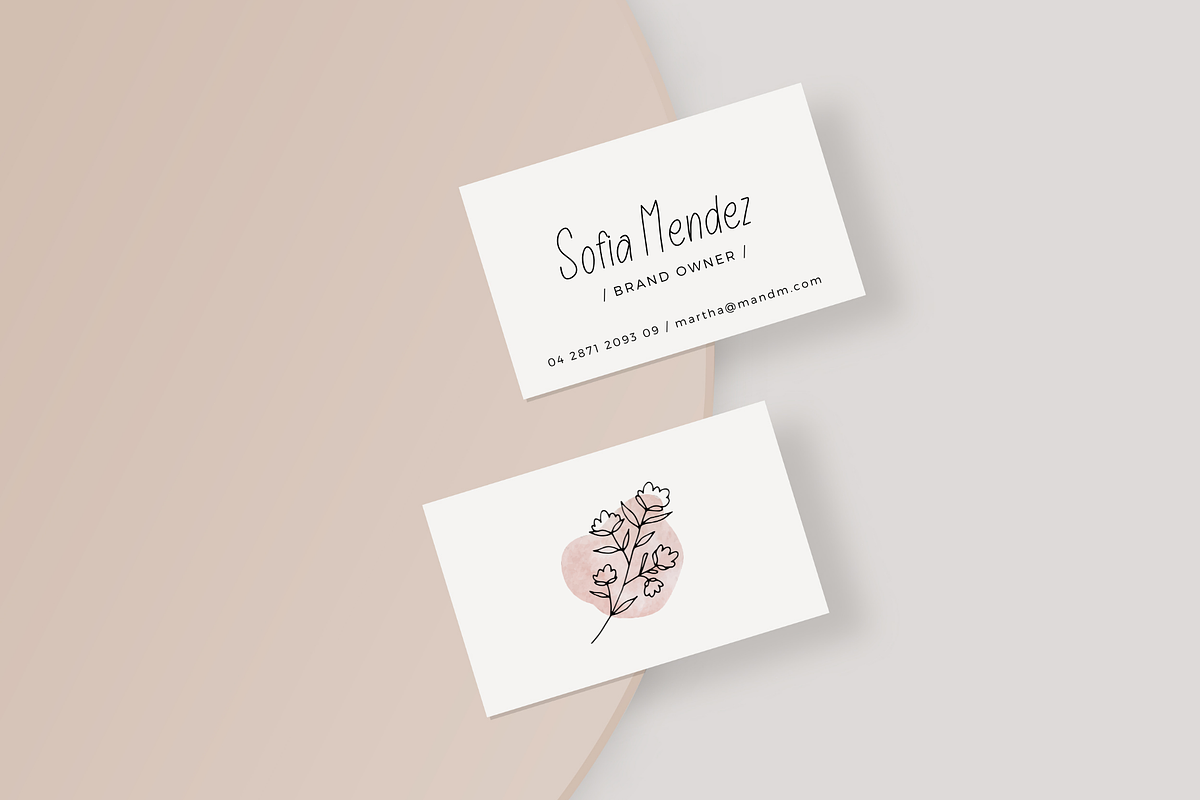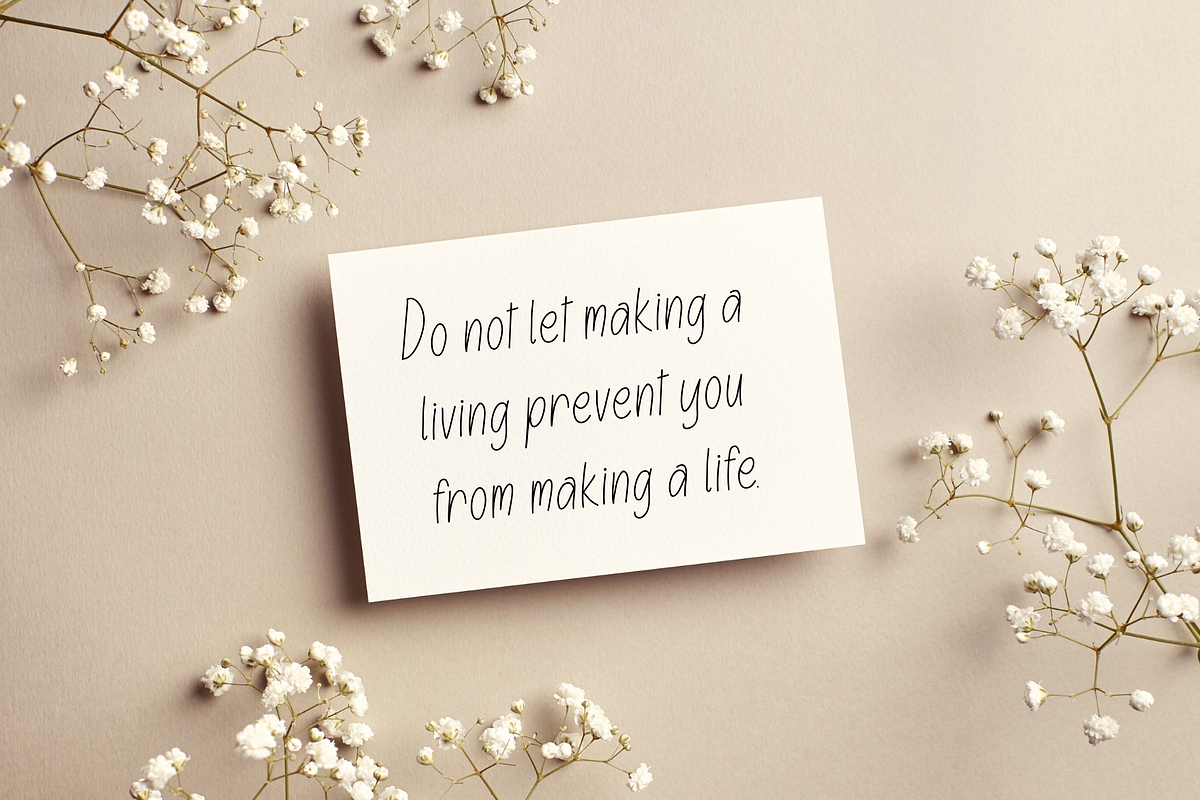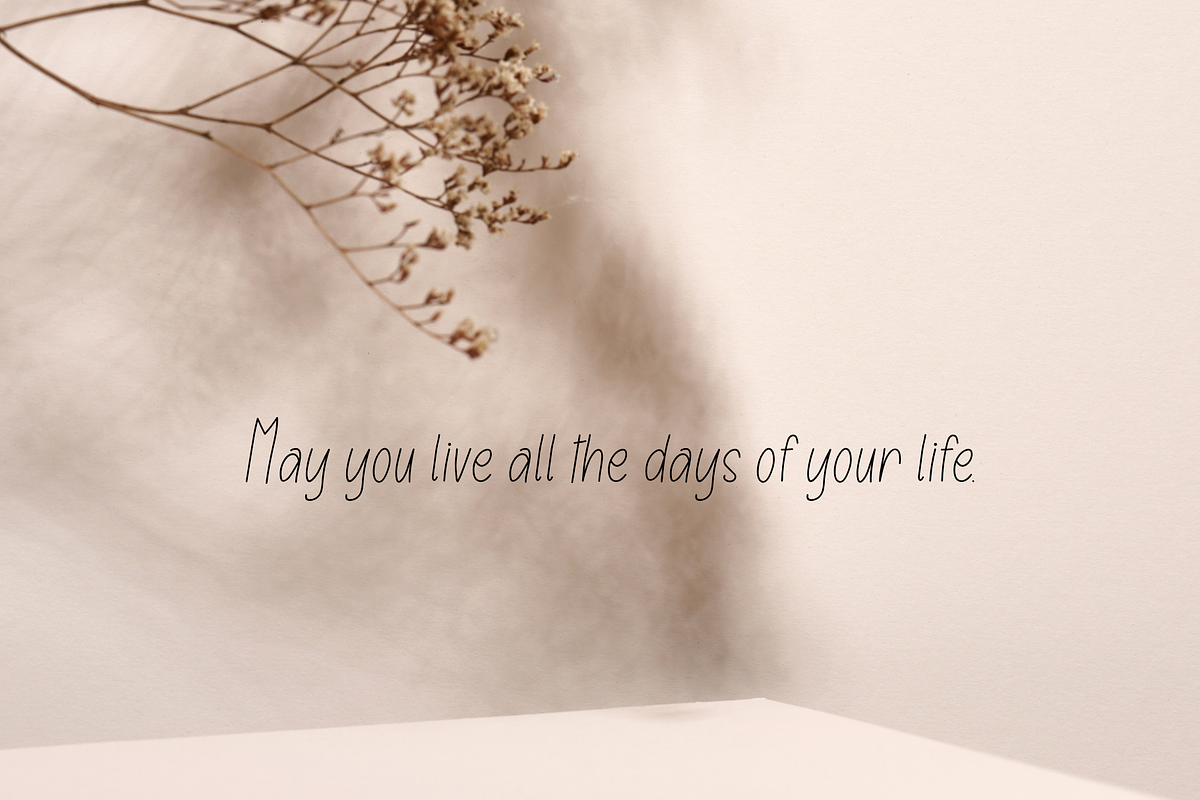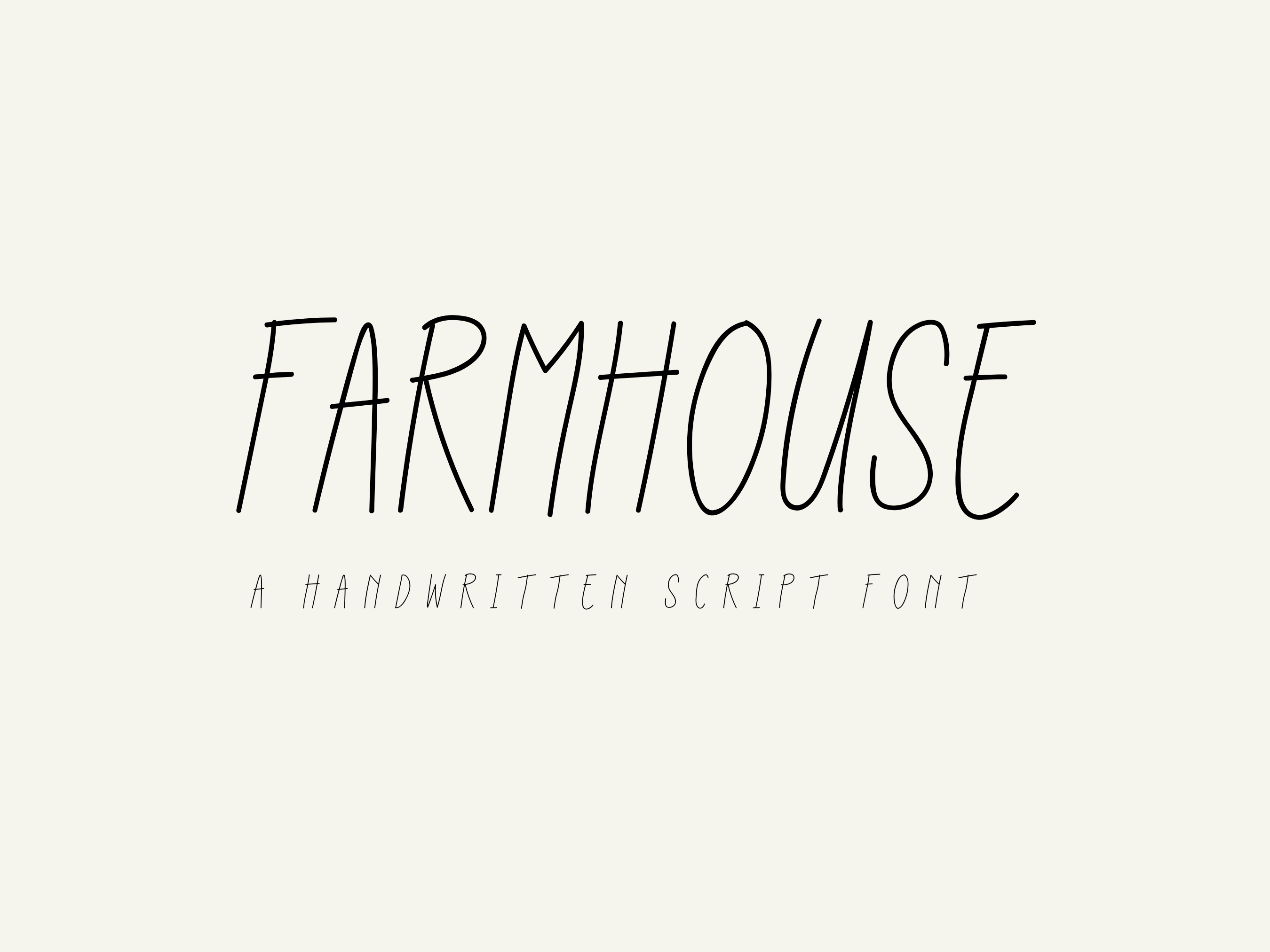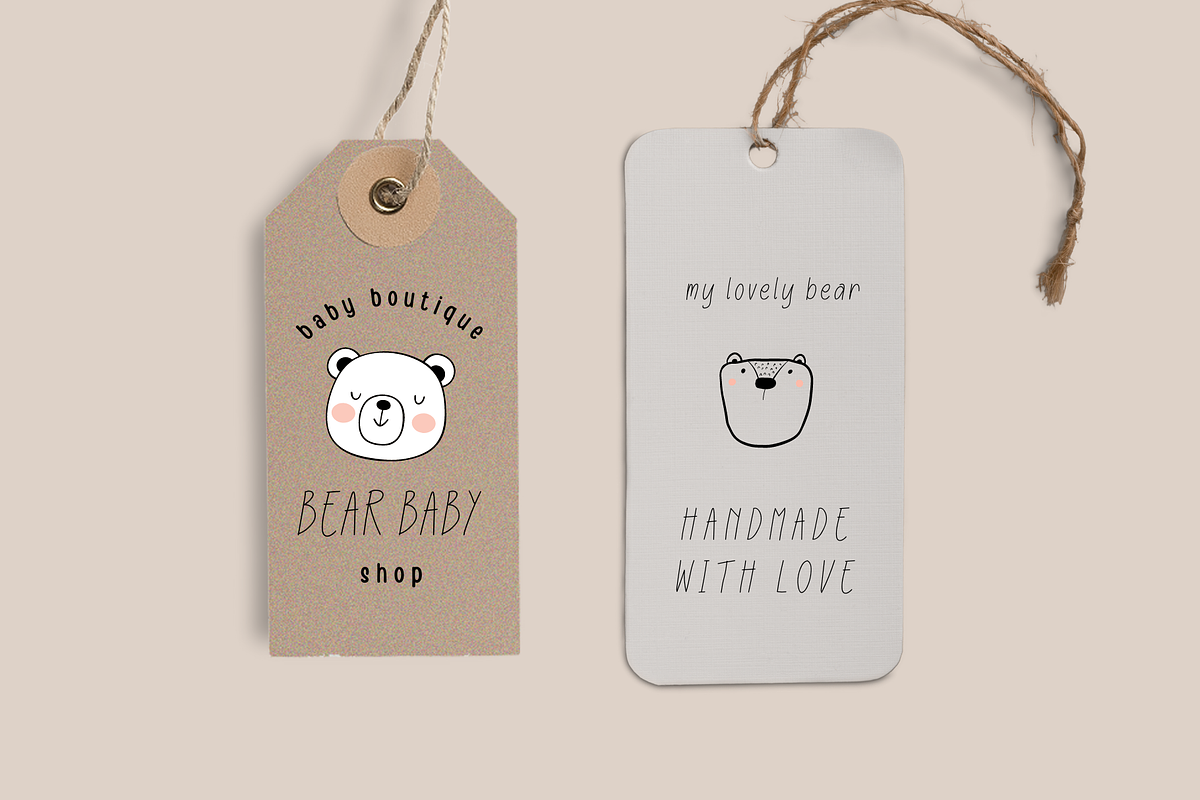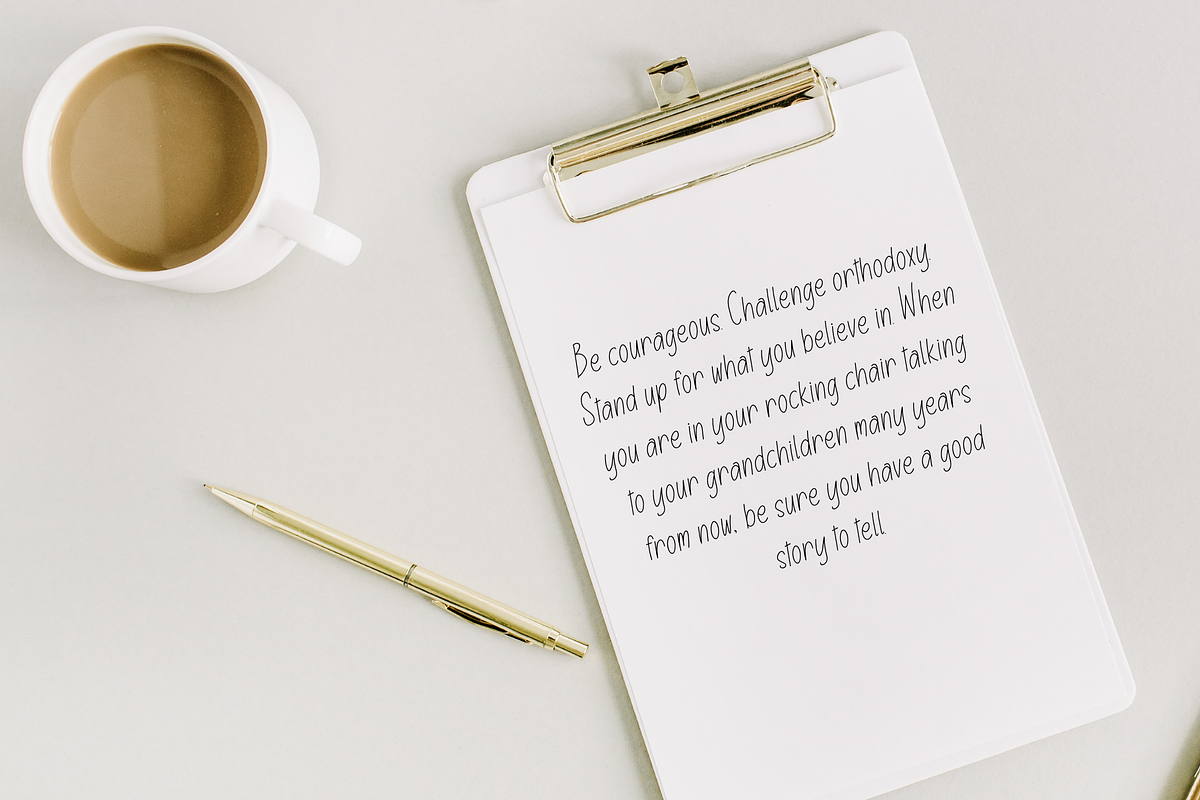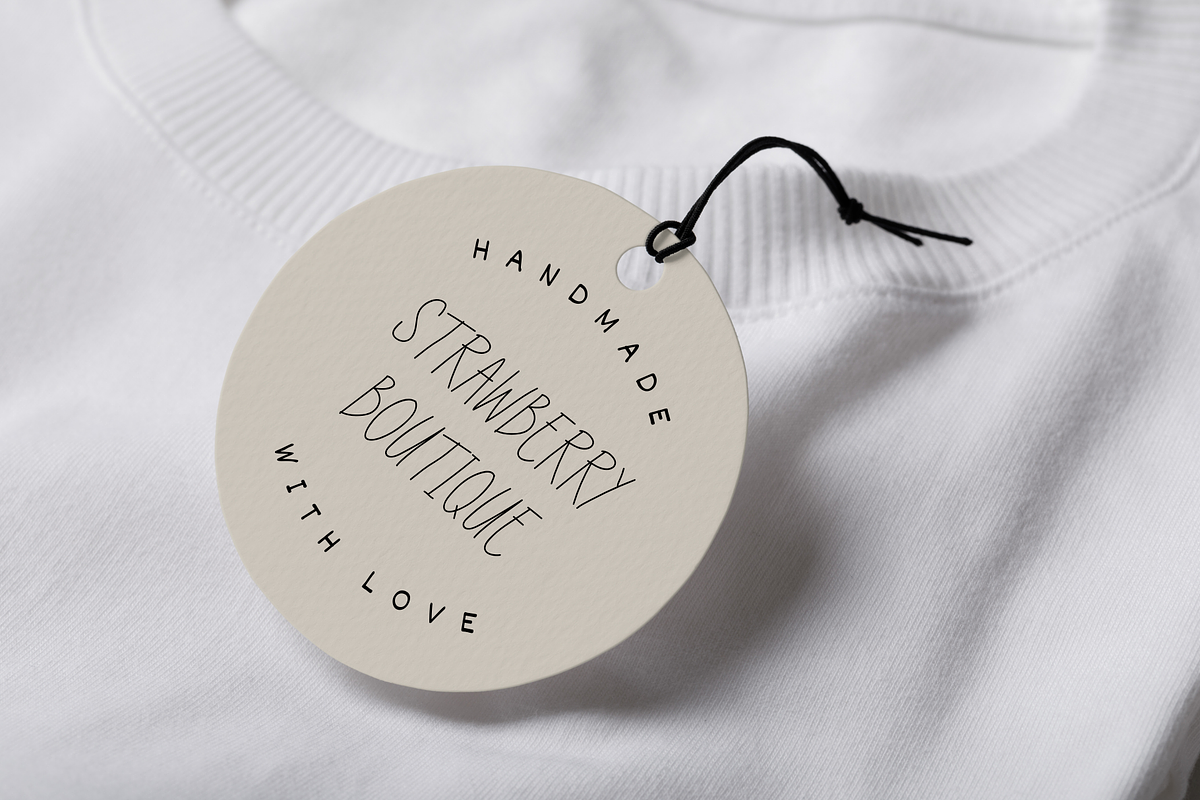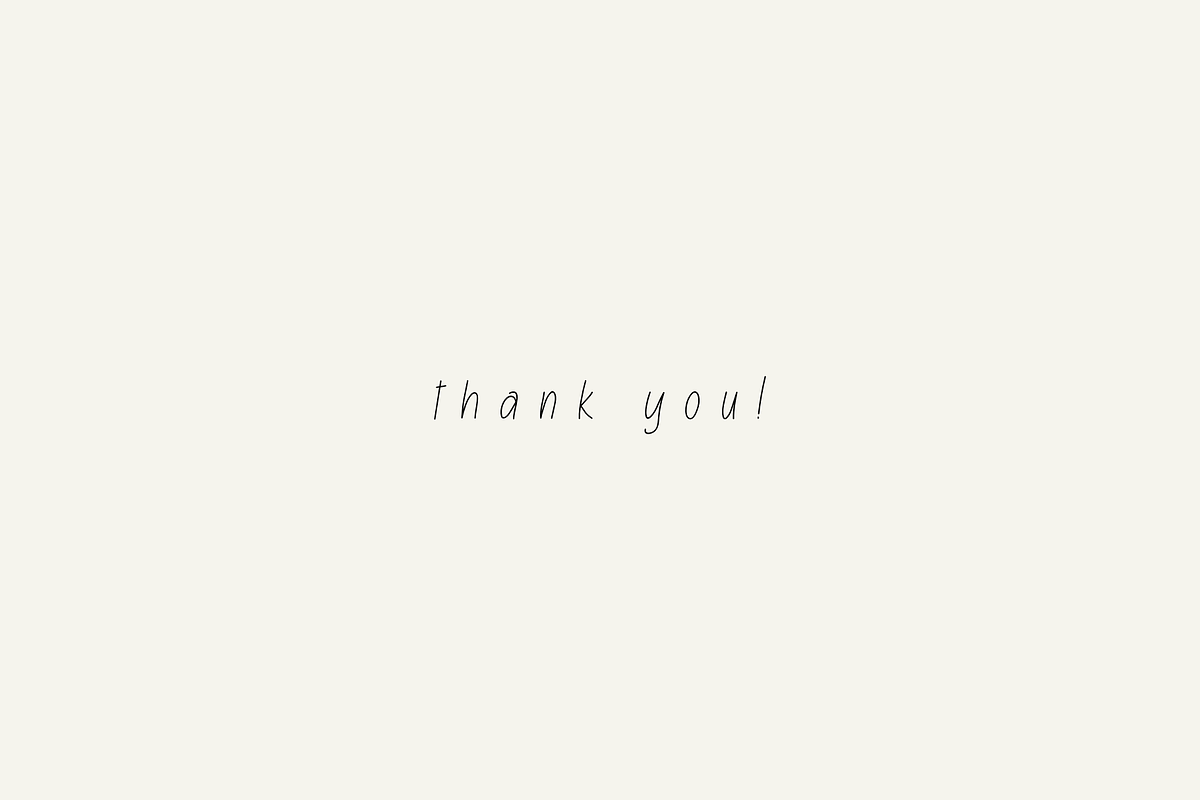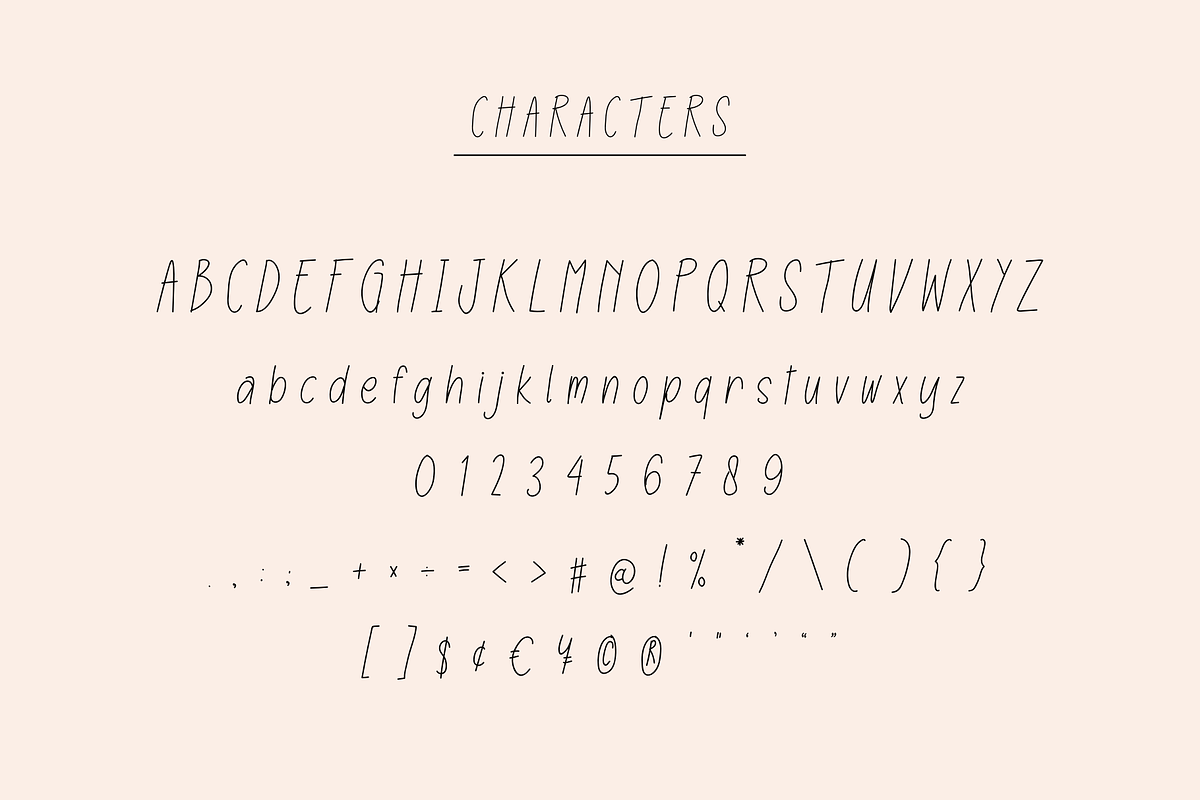
Farmhouse Handwritten Font
Handwritten font perfect for digital notes, planners, logo, web design, notebooks, journals, labels, blogs, quotes, greeting cards, tea towels, apparel, pillows, mugs, toys, posters, baby clothing, picture books and so much more... basically anything that requires a handwritten look! 😍